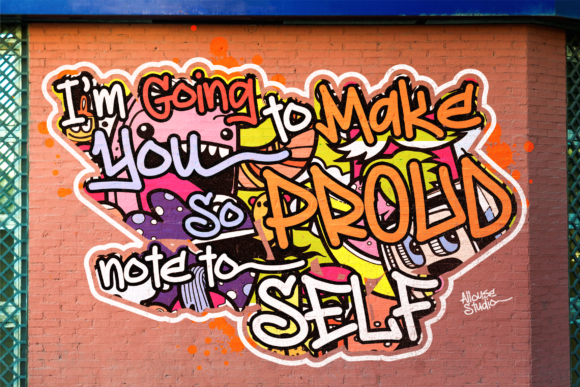
Introducing Jimmy Collins Font: The Ultimate Display Font for Creative Designs
In the world of typography, fonts play a crucial role in making or breaking a design. A well-chosen font can elevate your creative project and make it stand out from the crowd. If you’re looking for a font that can add a fresh and contemporary touch to your designs, look no further than Jimmy Collins Font. In this article, we’ll explore the features and benefits of Jimmy Collins Font, and how it can take your designs to the next level.
What is Jimmy Collins Font?
Jimmy Collins Font is a bouncy and quirky display font that is designed to add a unique touch to your creative projects. With its fresh and contemporary look, this font is perfect for designers who want to make their designs stand out. Whether you’re working on a branding project, a poster, or a website, Jimmy Collins Font is sure to grab attention and leave a lasting impression.
Key Features of Jimmy Collins Font
So, what makes Jimmy Collins Font so special? Here are some of its key features:
- Bouncy and Quirky Design: Jimmy Collins Font has a unique and playful design that is sure to add a touch of personality to your designs.
- Display Font: This font is specifically designed as a display font, making it perfect for headlines, titles, and other attention-grabbing elements.
- Fresh and Contemporary Look: Jimmy Collins Font has a modern and fresh look that is sure to appeal to designers who want to create contemporary designs.
- Highly Versatile: This font can be used in a wide range of design projects, from branding and advertising to web design and more.
Benefits of Using Jimmy Collins Font
So, why should you choose Jimmy Collins Font for your design projects? Here are some of the benefits of using this unique display font:
- Adds Personality to Your Designs: Jimmy Collins Font is a great way to add a touch of personality to your designs and make them stand out from the crowd.
- Perfect for Attention-Grabbing Elements: This font is specifically designed for attention-grabbing elements, making it perfect for headlines, titles, and other elements that need to stand out.
- Fresh and Contemporary Look: Jimmy Collins Font has a modern and fresh look that is sure to appeal to designers who want to create contemporary designs.
- Easy to Read: Despite its quirky design, Jimmy Collins Font is easy to read, making it perfect for use in a wide range of design projects.
How to Use Jimmy Collins Font in Your Designs
Using Jimmy Collins Font in your designs is easy. Here are some tips to get you started:
- Use it as a Headline Font: Jimmy Collins Font is perfect for use as a headline font, making it a great choice for attention-grabbing titles and headings.
- Add it to Your Branding Materials: This font is a great choice for branding materials, such as logos, business cards, and letterheads.
- Use it in Your Web Design: Jimmy Collins Font can be used in web design to add a touch of personality to your website.
- Experiment with Different Colors and Sizes: Don’t be afraid to experiment with different colors and sizes to make Jimmy Collins Font really stand out in your designs.
Tips for Pairing Jimmy Collins Font with Other Fonts
Pairing Jimmy Collins Font with other fonts can be a great way to create a unique and visually appealing design. Here are some tips for pairing Jimmy Collins Font with other fonts:
- Pair it with a Serif Font: Pairing Jimmy Collins Font with a serif font can create a nice contrast and add visual interest to your design.
- Use it with a Script Font: Jimmy Collins Font can also be paired with a script font to create a fun and playful design.
- Experiment with Different Font Sizes: Experimenting with different font sizes can help to create a visually appealing hierarchy in your design.
In conclusion, Jimmy Collins Font is a unique and versatile display font that can add a fresh and contemporary touch to your designs. With its bouncy and quirky design, this font is perfect for attention-grabbing elements and can be used in a wide range of design projects. Whether you’re a designer, artist, or DIY enthusiast, Jimmy Collins Font is a great choice for anyone looking to add a touch of personality to their designs.
- What is Jimmy Collins Font?: Jimmy Collins Font is a bouncy and quirky display font designed to add a fresh and contemporary touch to your designs.
- What is Jimmy Collins Font used for?: Jimmy Collins Font can be used in a wide range of design projects, including branding, advertising, web design, and more.
- Is Jimmy Collins Font easy to read?: Yes, despite its quirky design, Jimmy Collins Font is easy to read, making it perfect for use in a wide range of design projects.